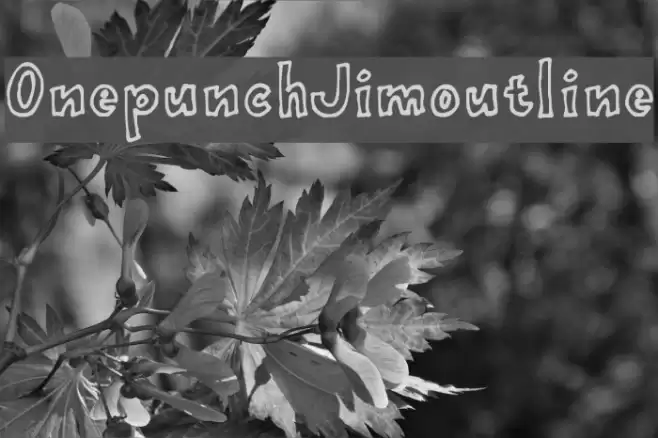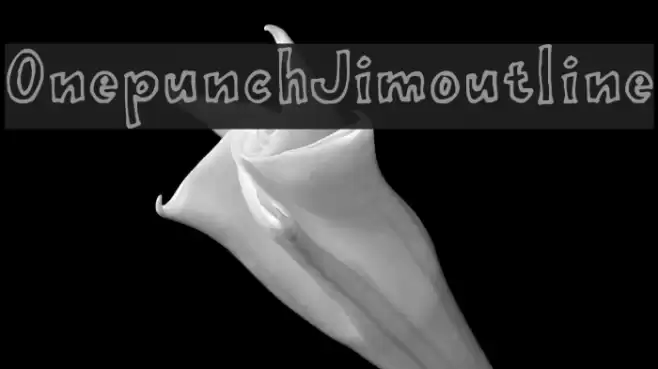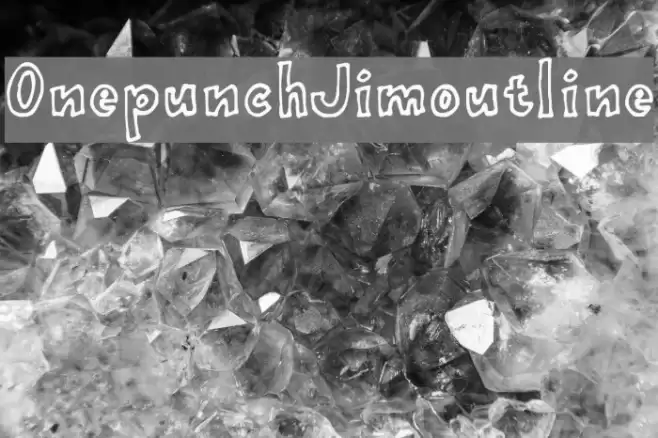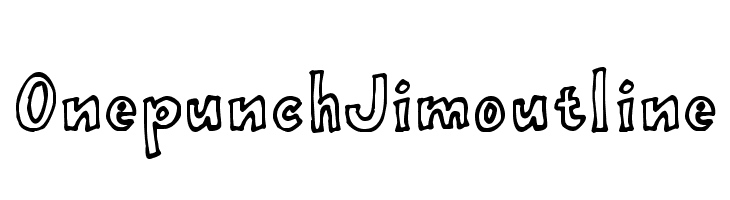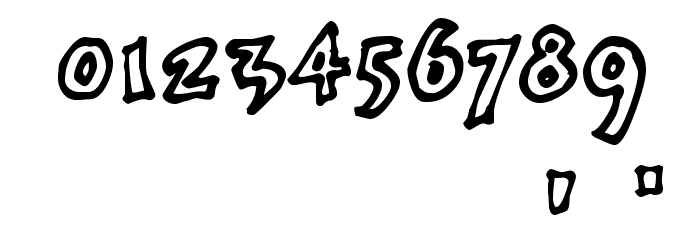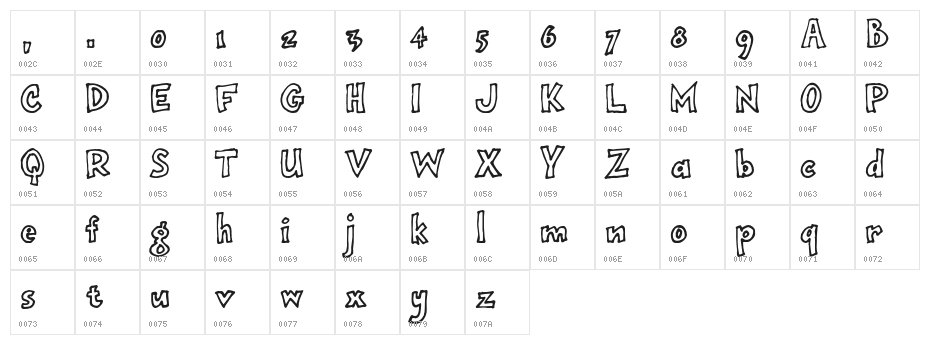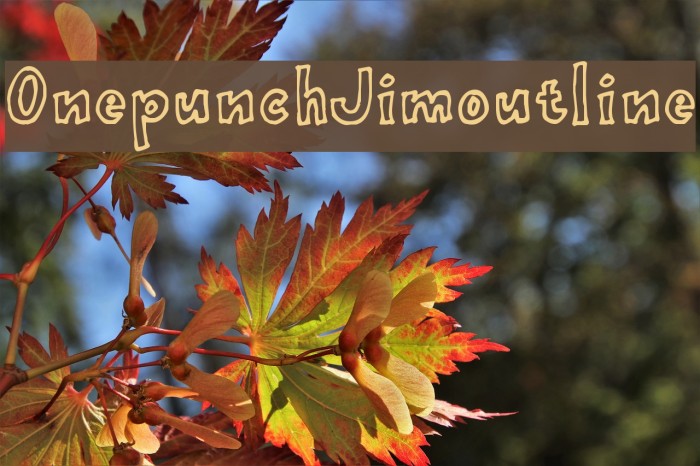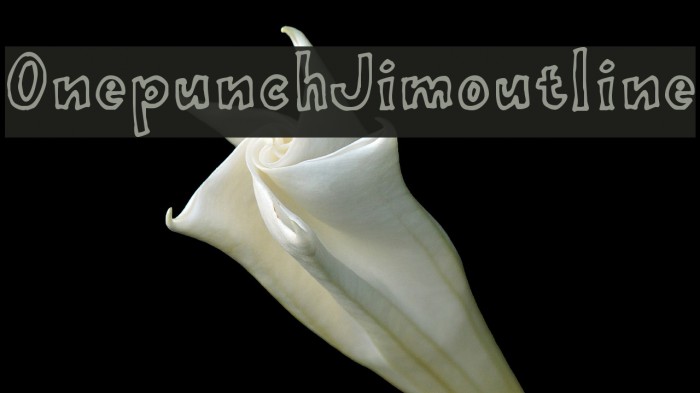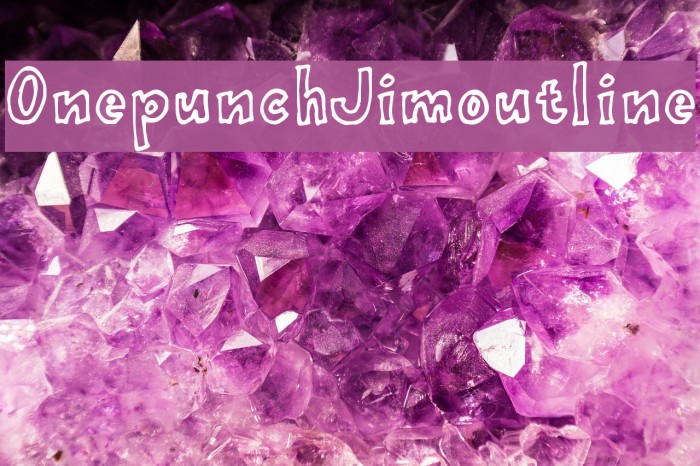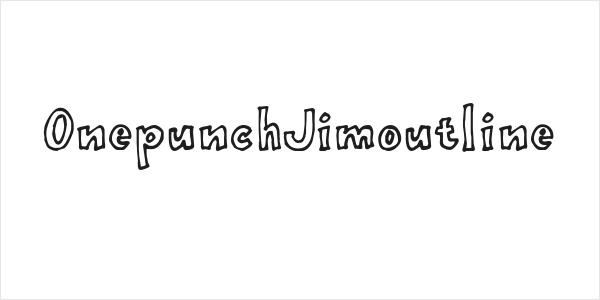
OnepunchJimoutline Font
OnepunchJimoutline Description
This font features a playful and bold outline style, characterized by its hand-drawn appearance. The letters are irregular and quirky, with a cartoonish vibe that adds a sense of fun and creativity. The uppercase and lowercase letters maintain a consistent style, with exaggerated curves and angles that give the font a dynamic and lively feel. The numbers and special characters follow the same whimsical design, making it suitable for projects that aim to capture attention and convey a sense of humor or lightheartedness.
A playful, hand-drawn outline font with a cartoonish and quirky style from Uncategorized fonts.
- Proposed Projects: Ideal for comic books, children's books, playful branding, posters, and creative social media graphics.
- Overall Style: Playful, Cartoonish, Hand-drawn